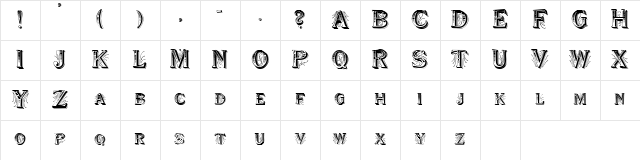
Showboat Regular Free Font
Showboat Regular
Design Context for Showboat
Showboat is a composed and adaptable typeface that performs quietly and consistently across a wide range of design contexts.